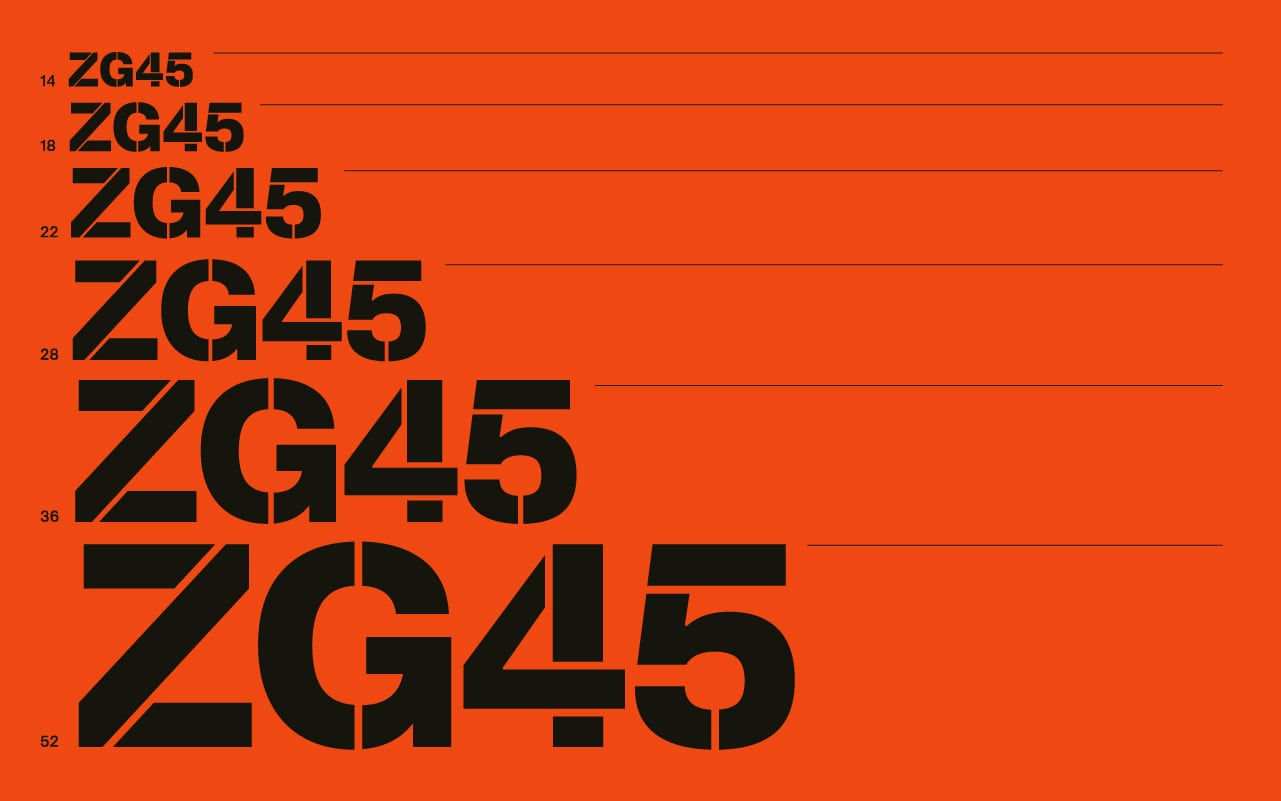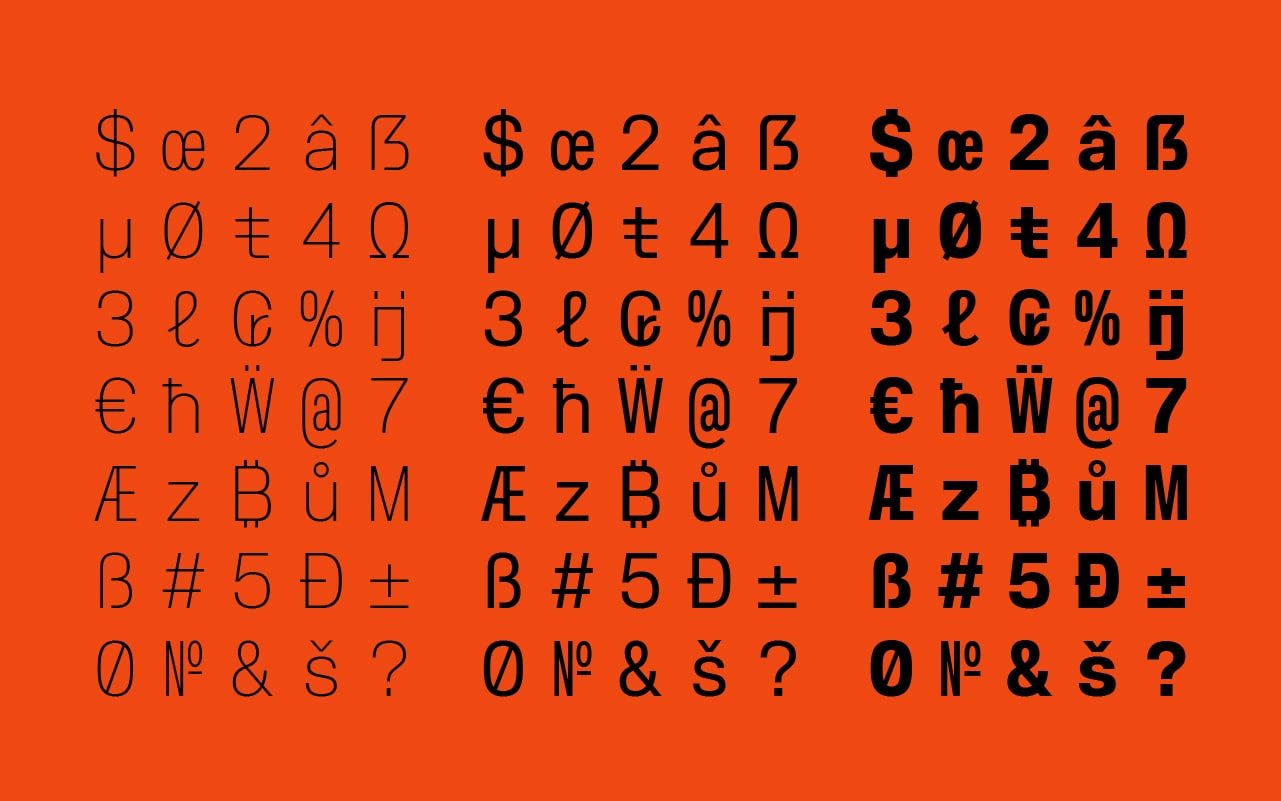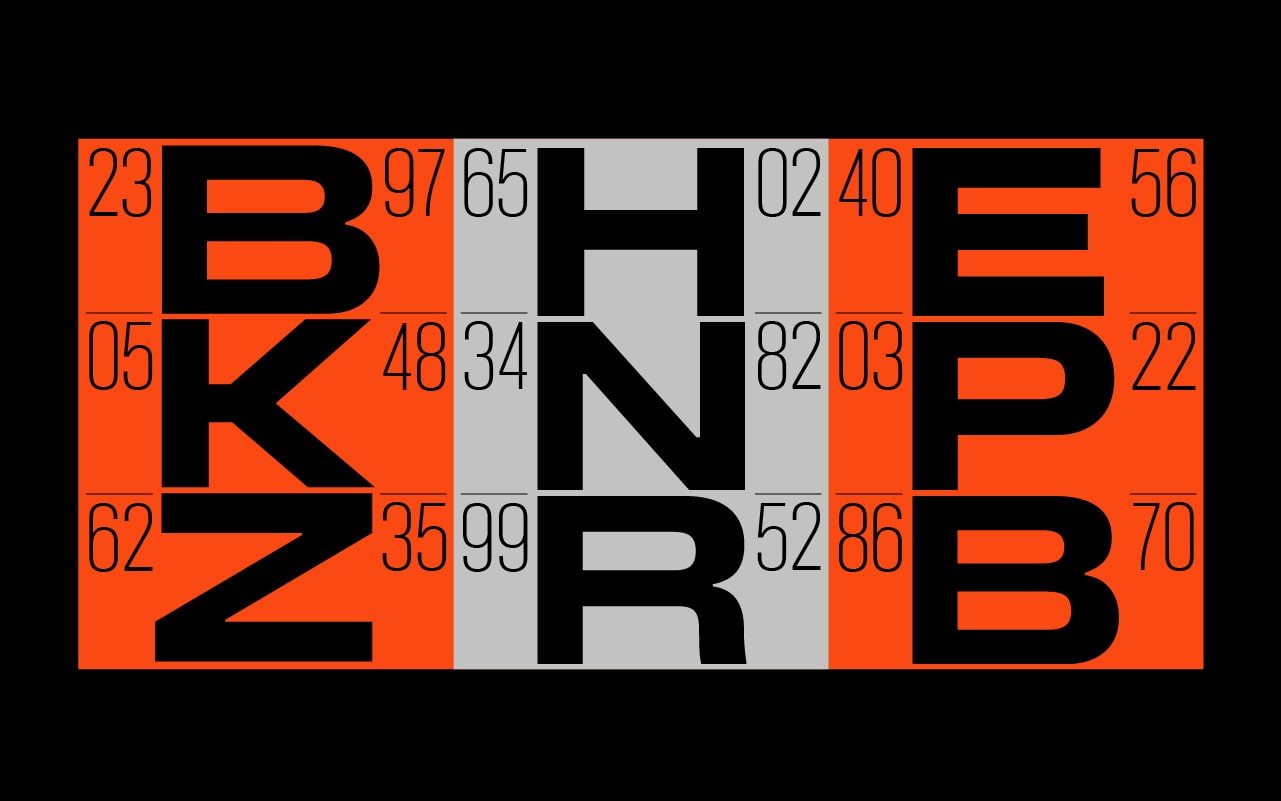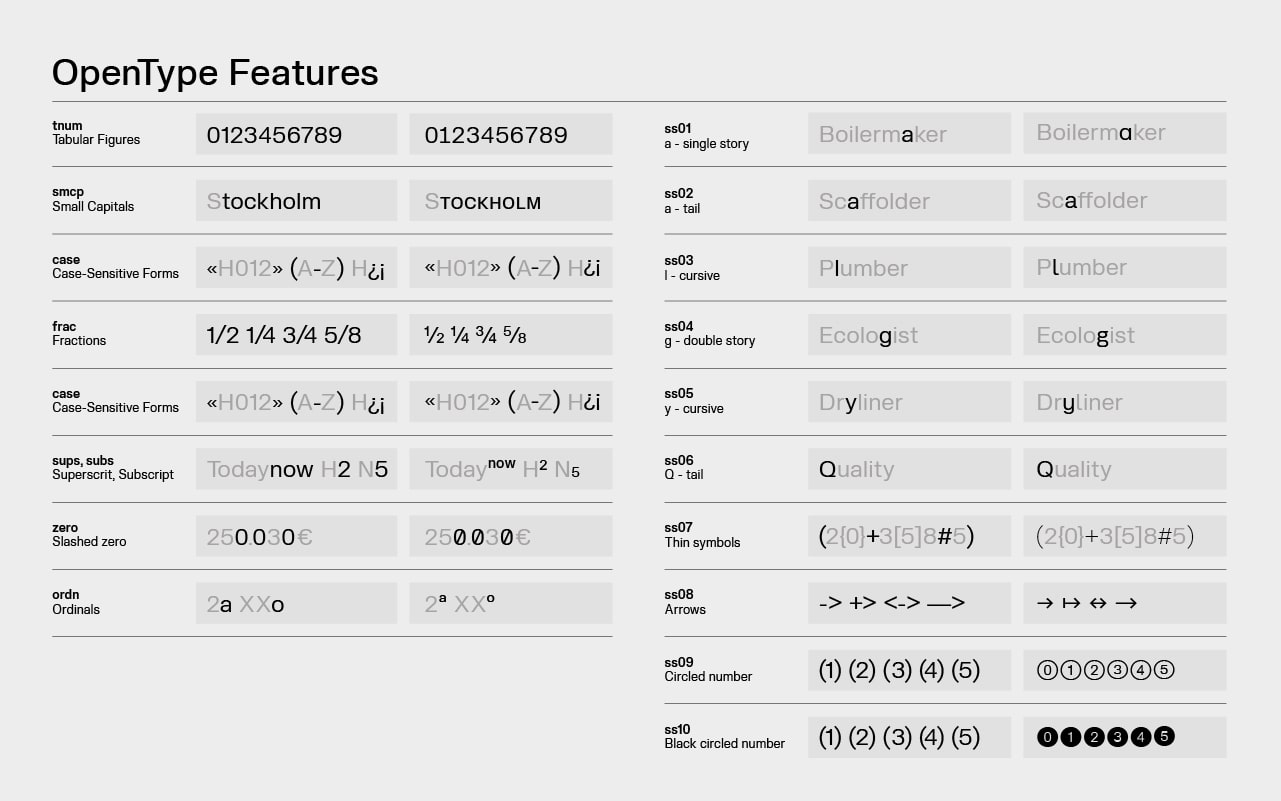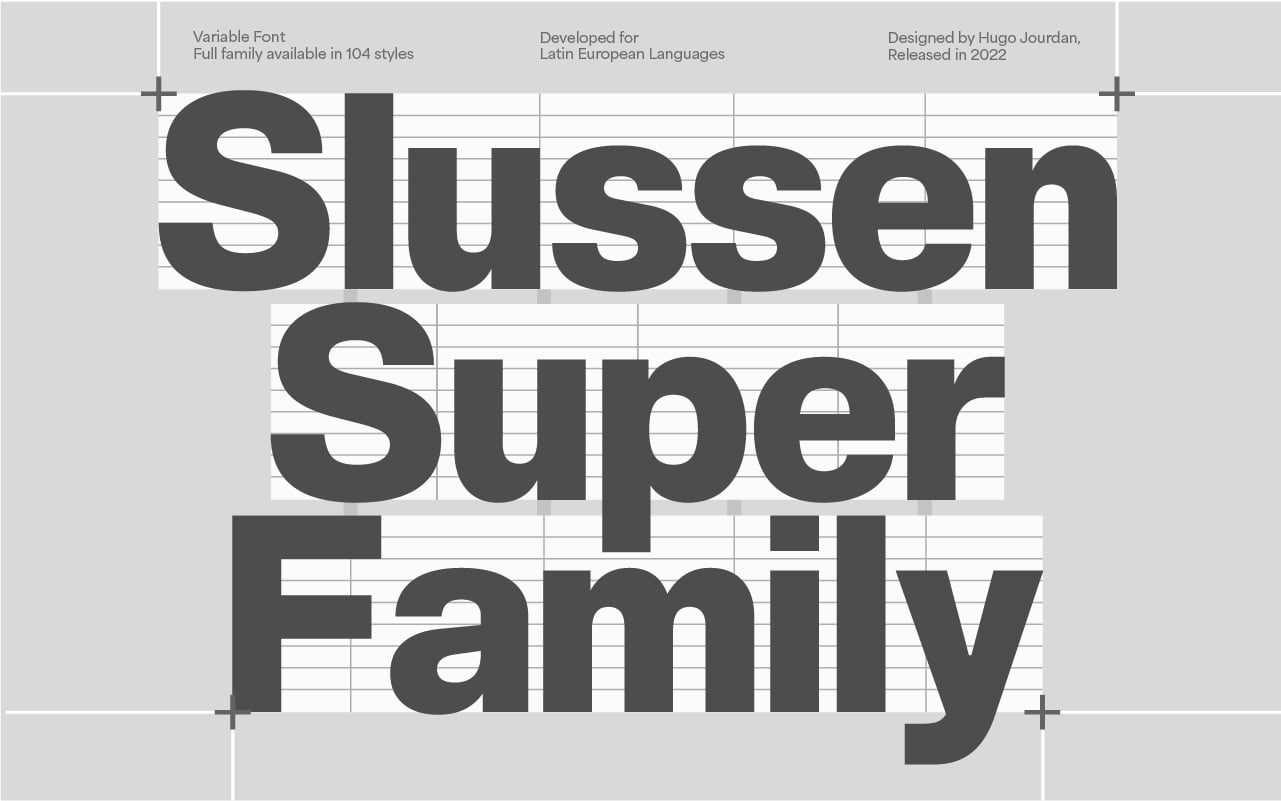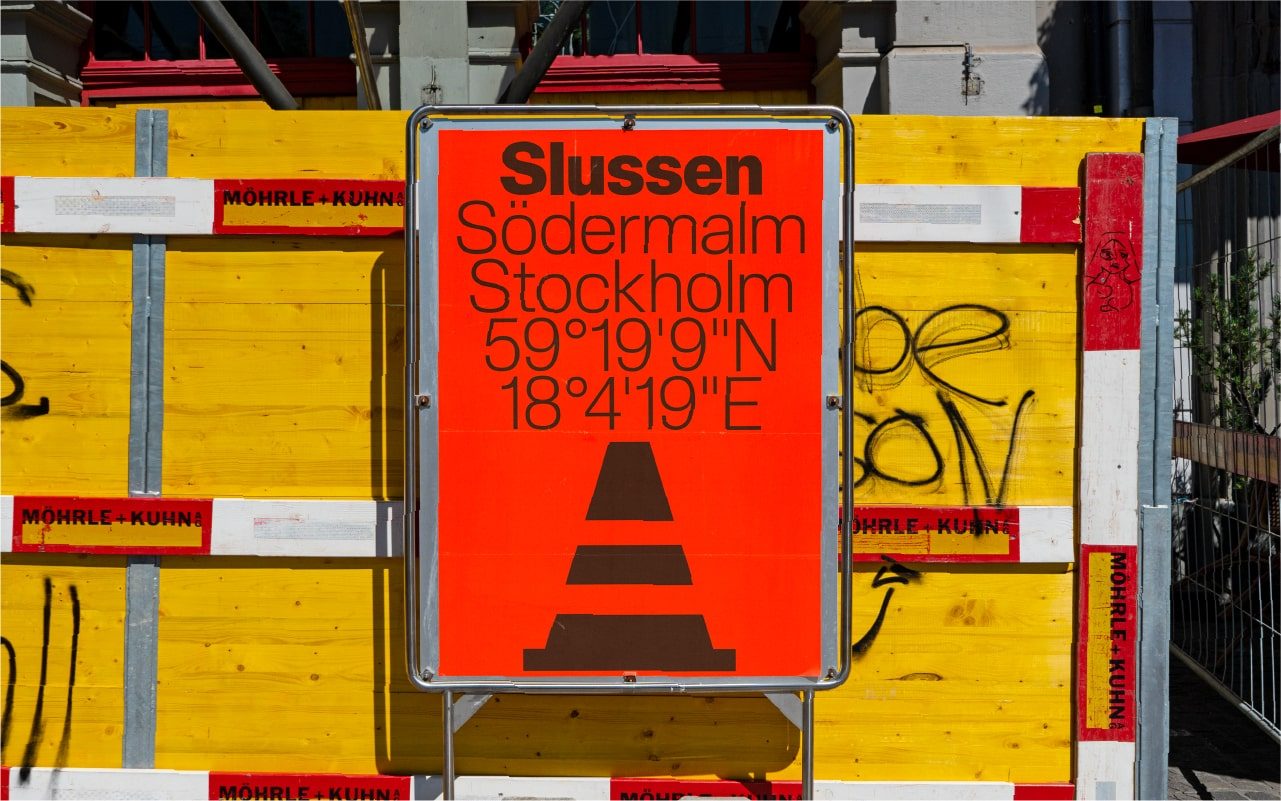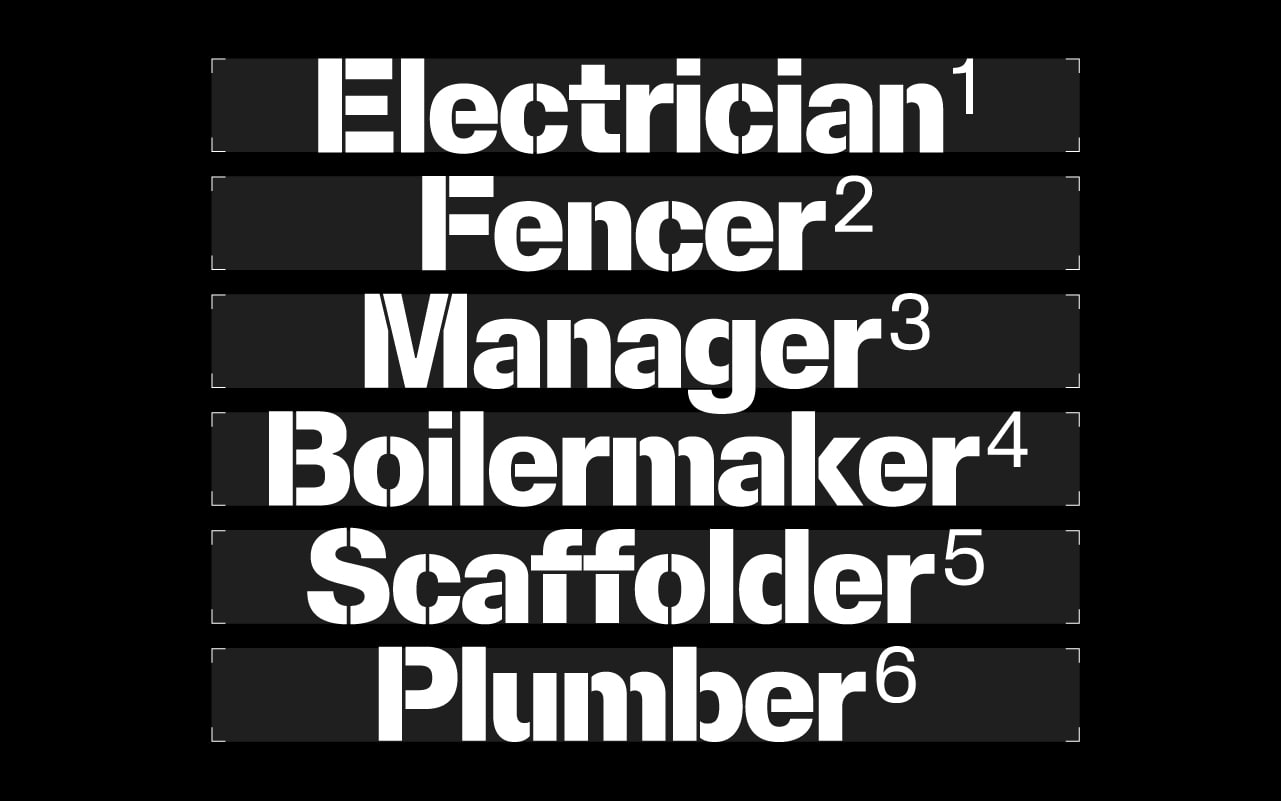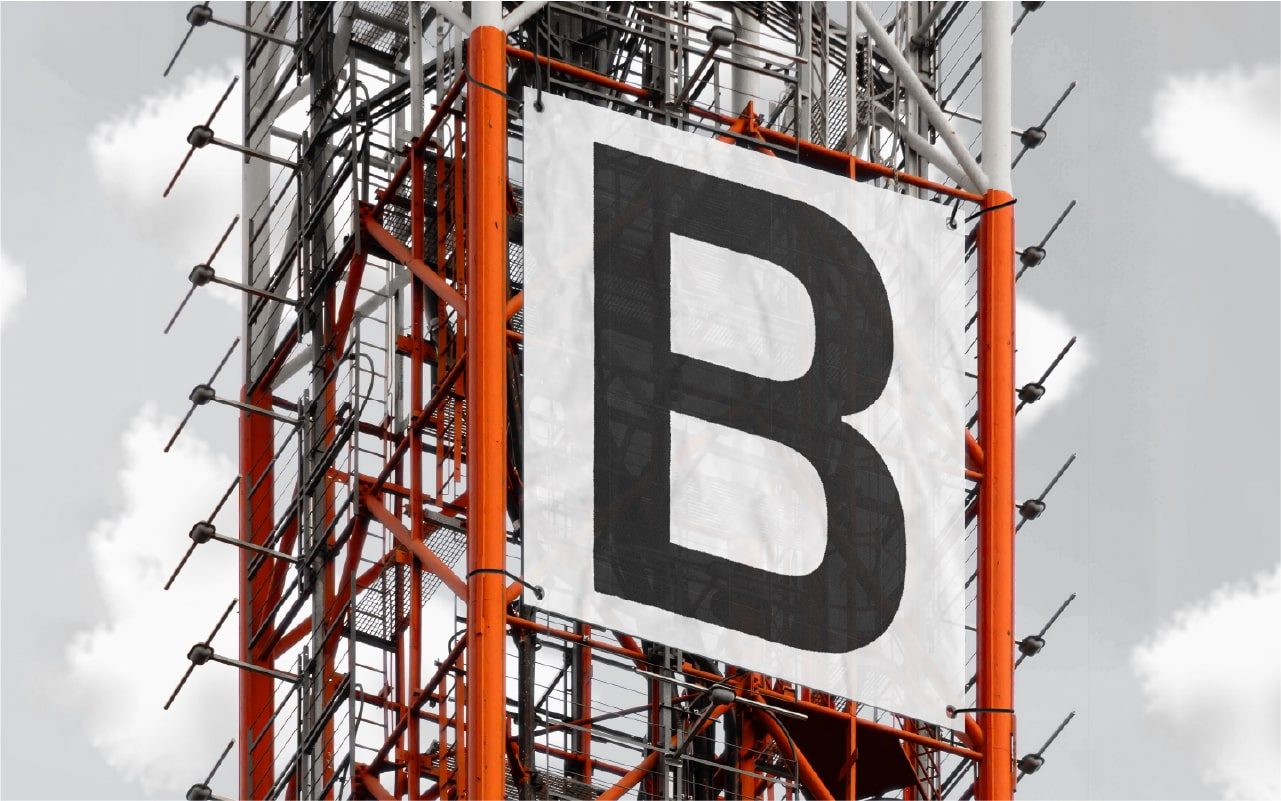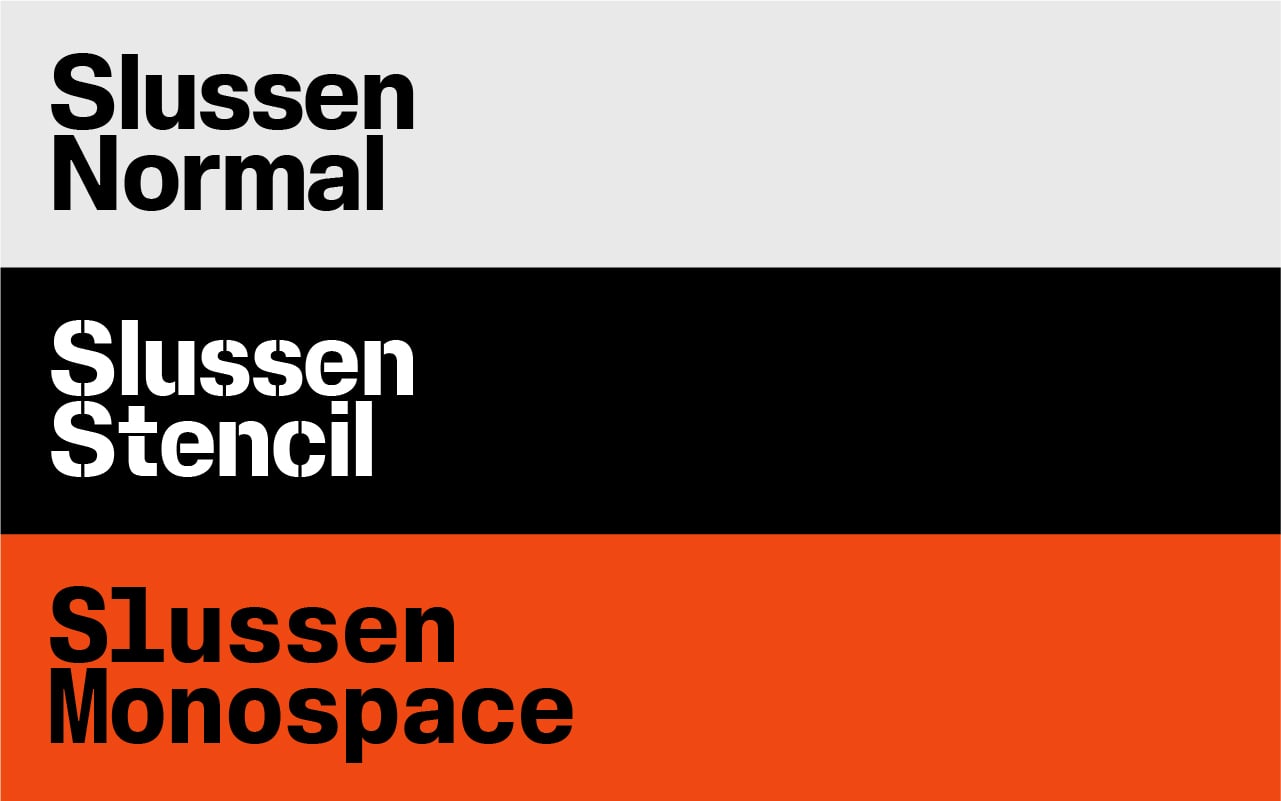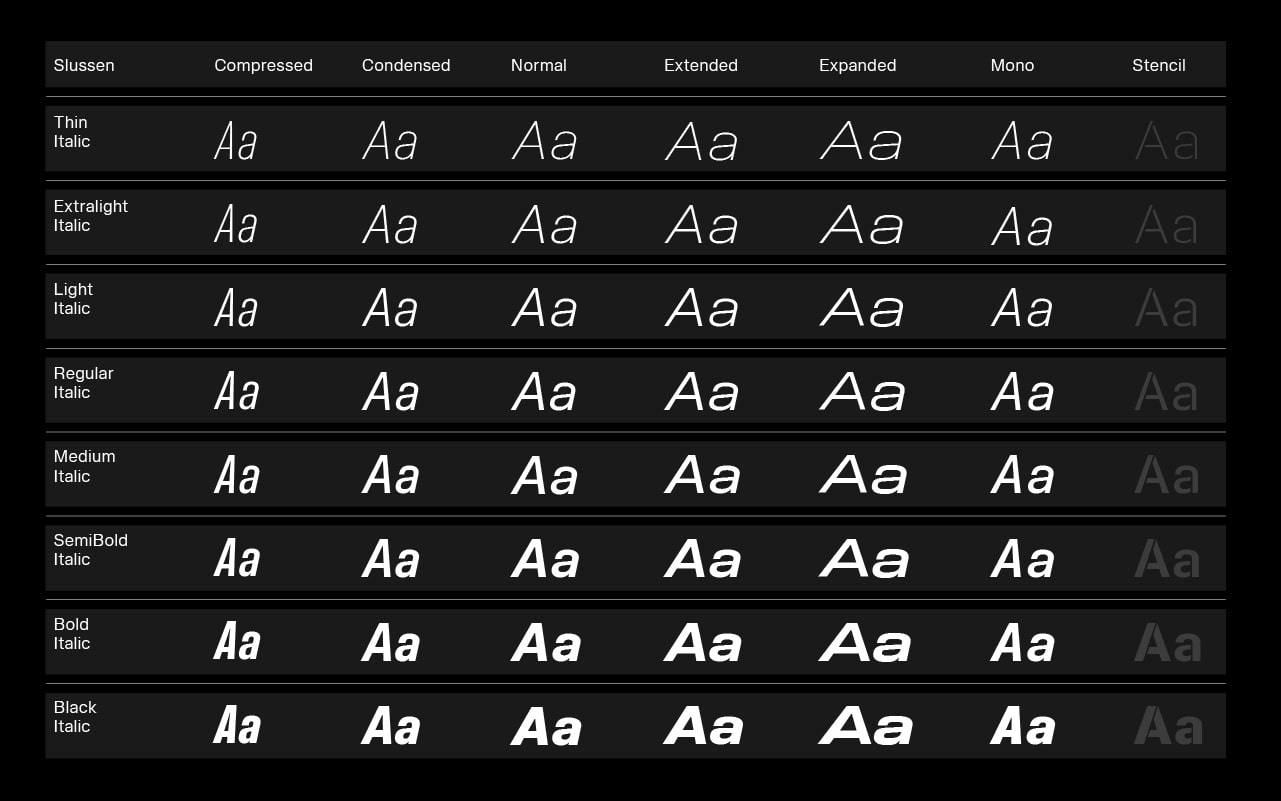
Slussen Mono
Slussen Mono is the Monospace version of Slussen. Retaining its inspirations from architecture and construction, the retro Monospace aspect of this typeface brings consistency and clearness to your text layouts. Its uniformity make it ideal for text-based formatting.
Slussen is a Neo-Grotesque typeface well suited to tech and industrial companies. Slussen's inspiration comes from rhythm and organisation of construction sites. When compared to more conventional Neo-Grotesque typefaces, Slussen's design structure is based on a linear evolution throughout angular outlines. Combined with flat endings and a slight contrast in letterforms, this font family has been designed to cover a very large range of uses, from small captions to huge titles. From Compressed to Expanded, the complete family ranges across 6 widths and 8 weights + matching italics for a total of 104 styles in order to fit all types and sizes of supports, both print and on screen. The family includes a Stencil version in reference to construction sites, ideal for designing signage tools and a Monospace version which combined with the standard version, allows Slussen to be a strong font system.